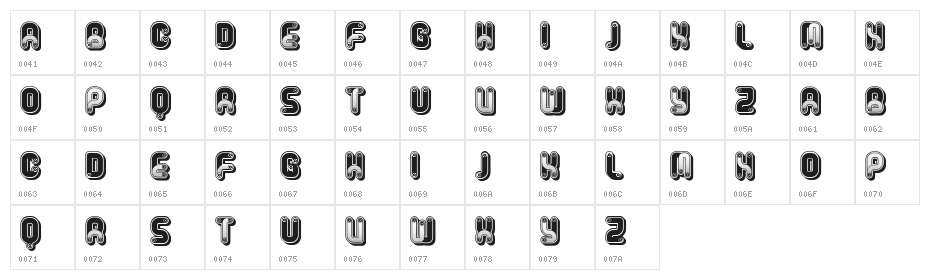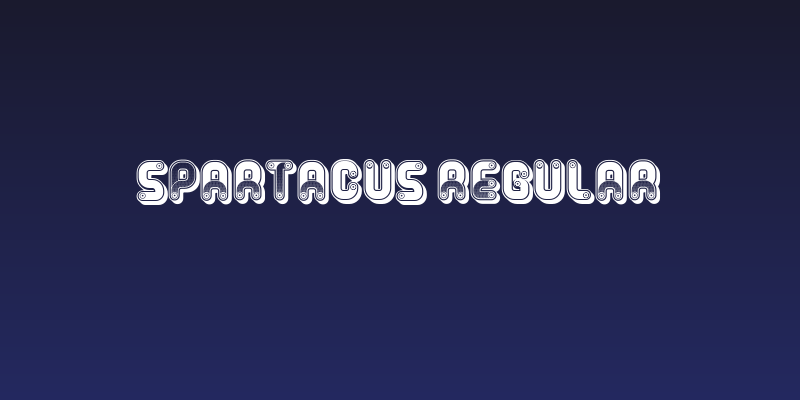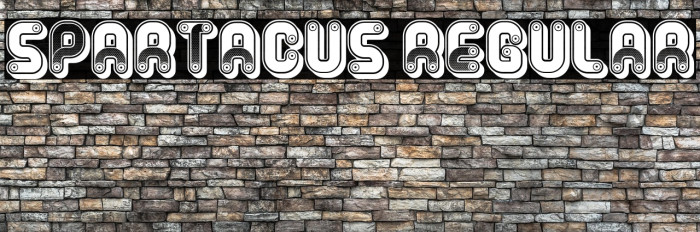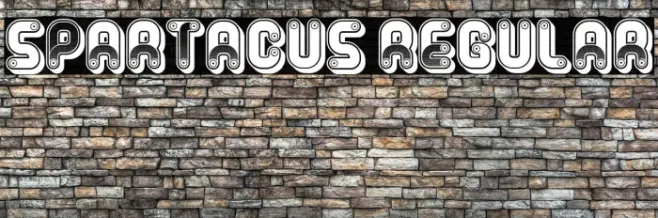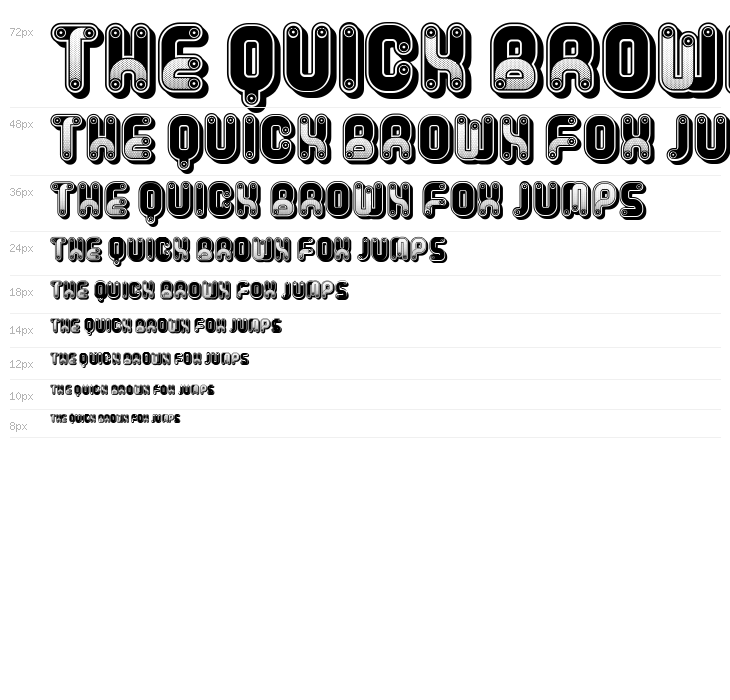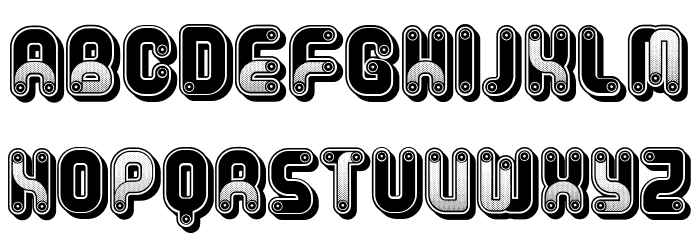
Spartacus Regular Font
Spartacus Regular Description
This font features a bold, decorative style with a unique mechanical and industrial aesthetic. Each character is designed with intricate details, including rivet-like dots and layered outlines that give a three-dimensional effect. The letters are uppercase, with a consistent width and height, creating a uniform appearance. The design is reminiscent of vintage machinery, making it stand out with its bold presence. The font's intricate detailing and bold outlines make it suitable for eye-catching designs where a strong visual impact is desired.
| Proposed Projects | Ideal for posters, logos, branding, and any project requiring a strong, industrial look. |